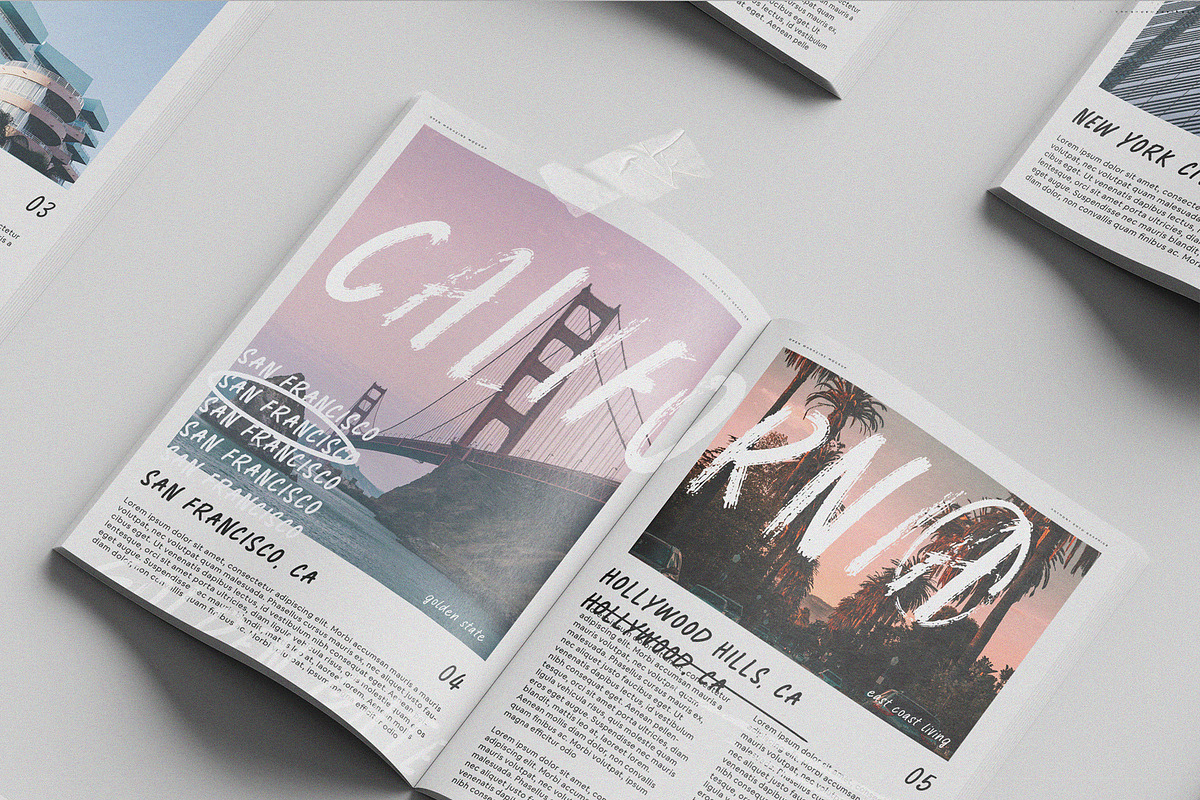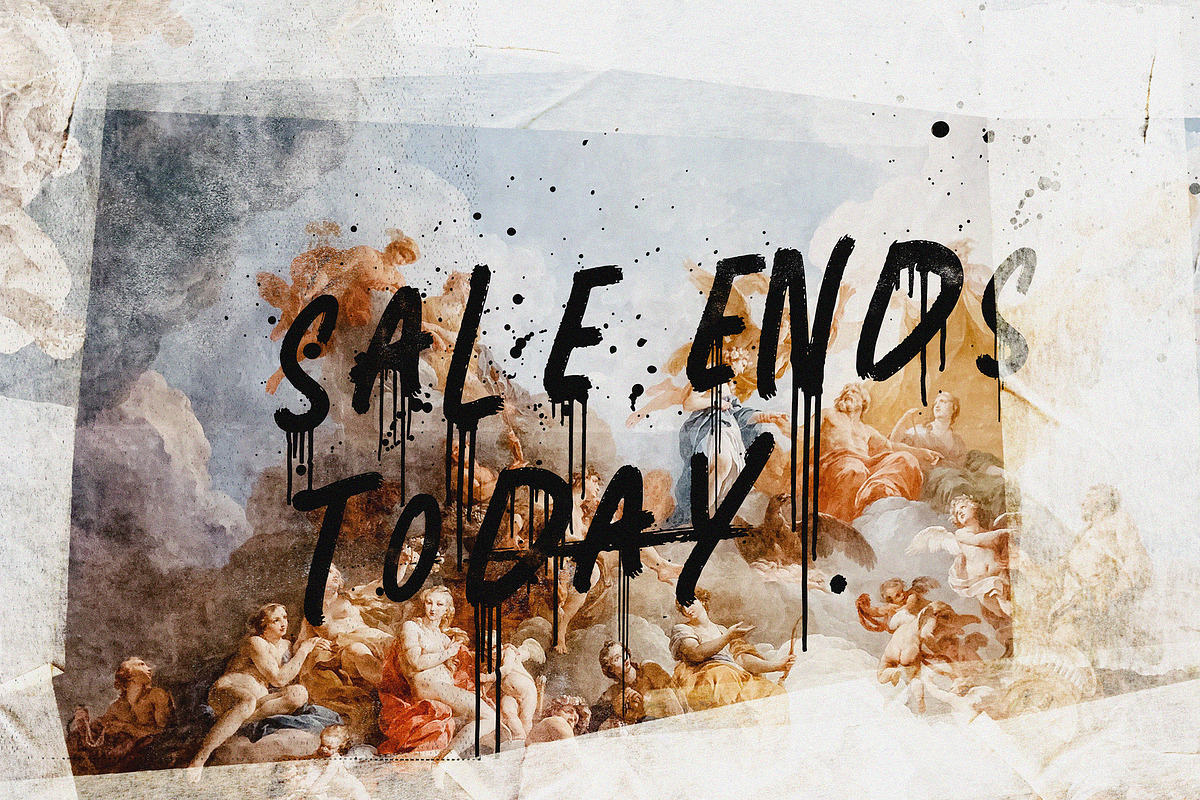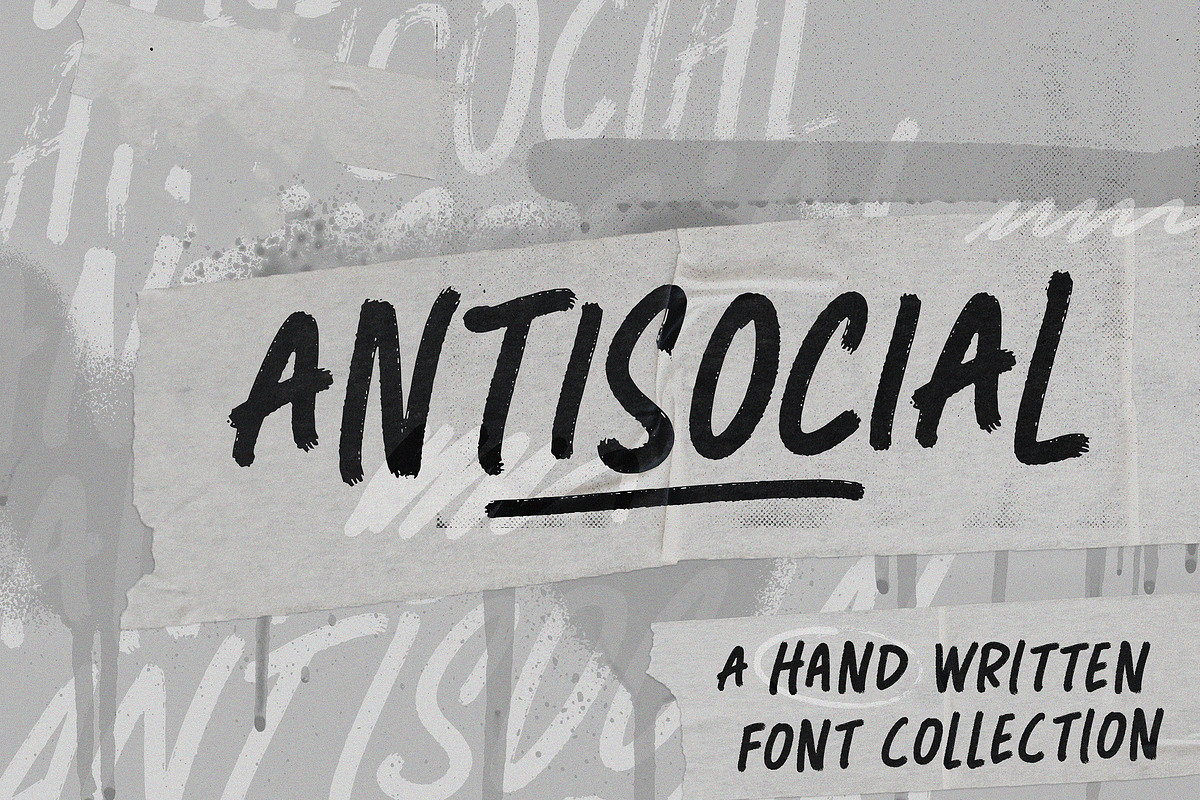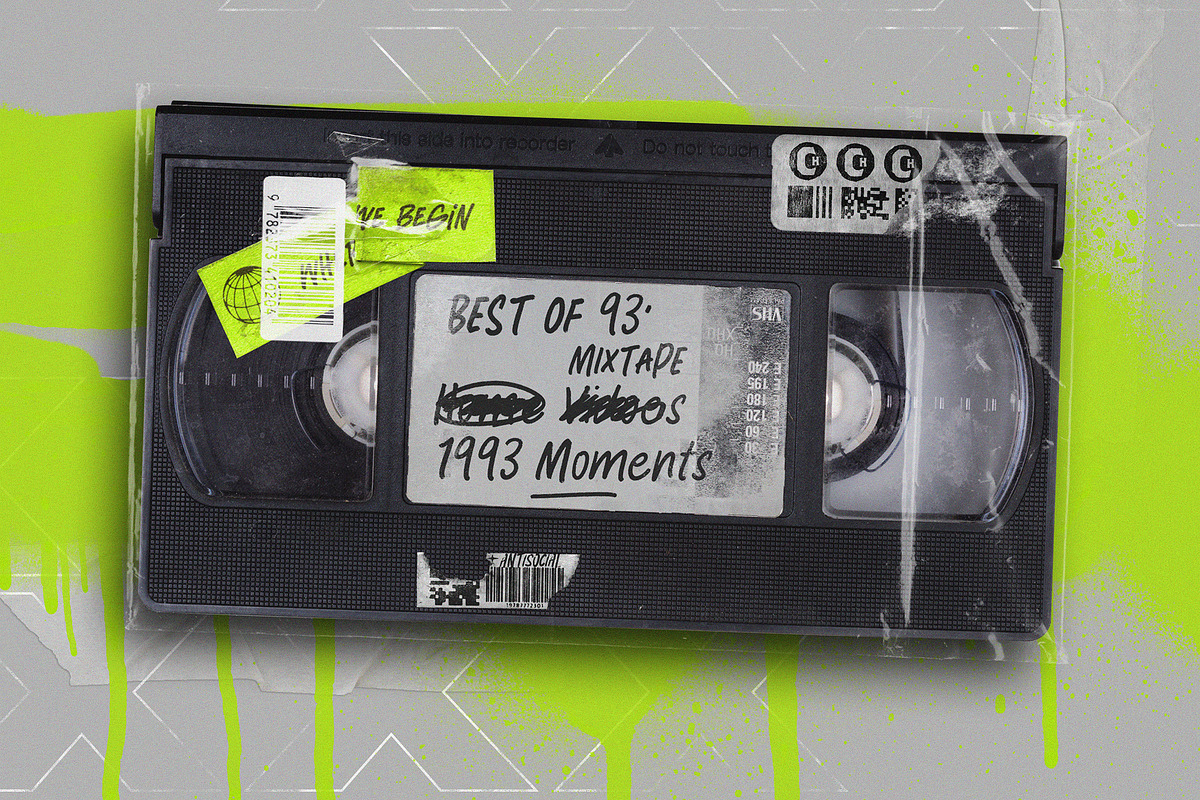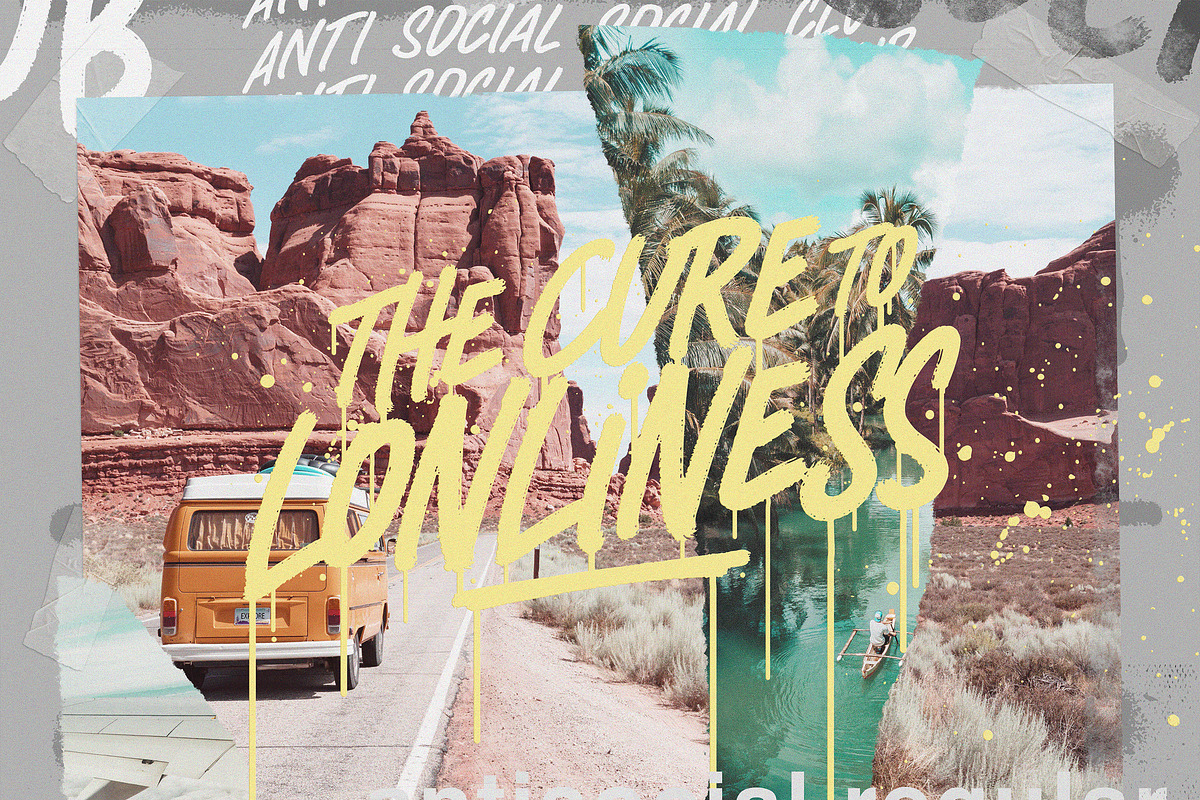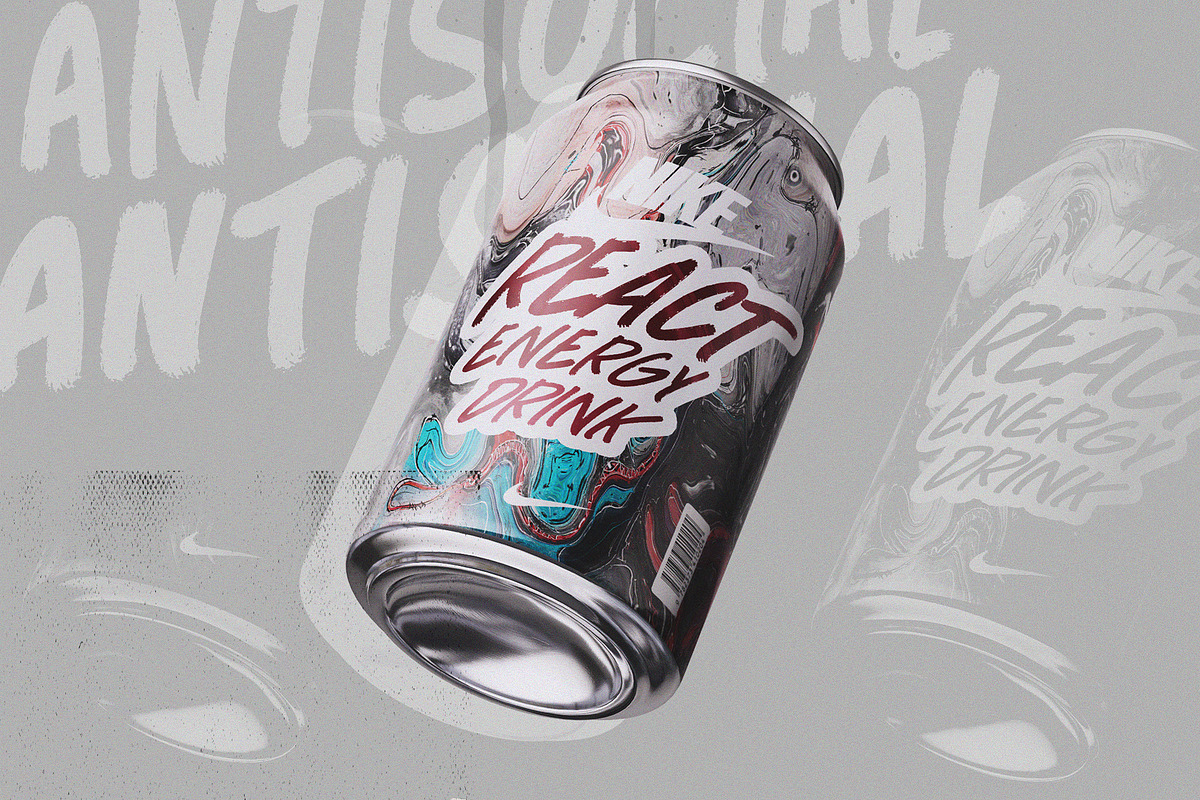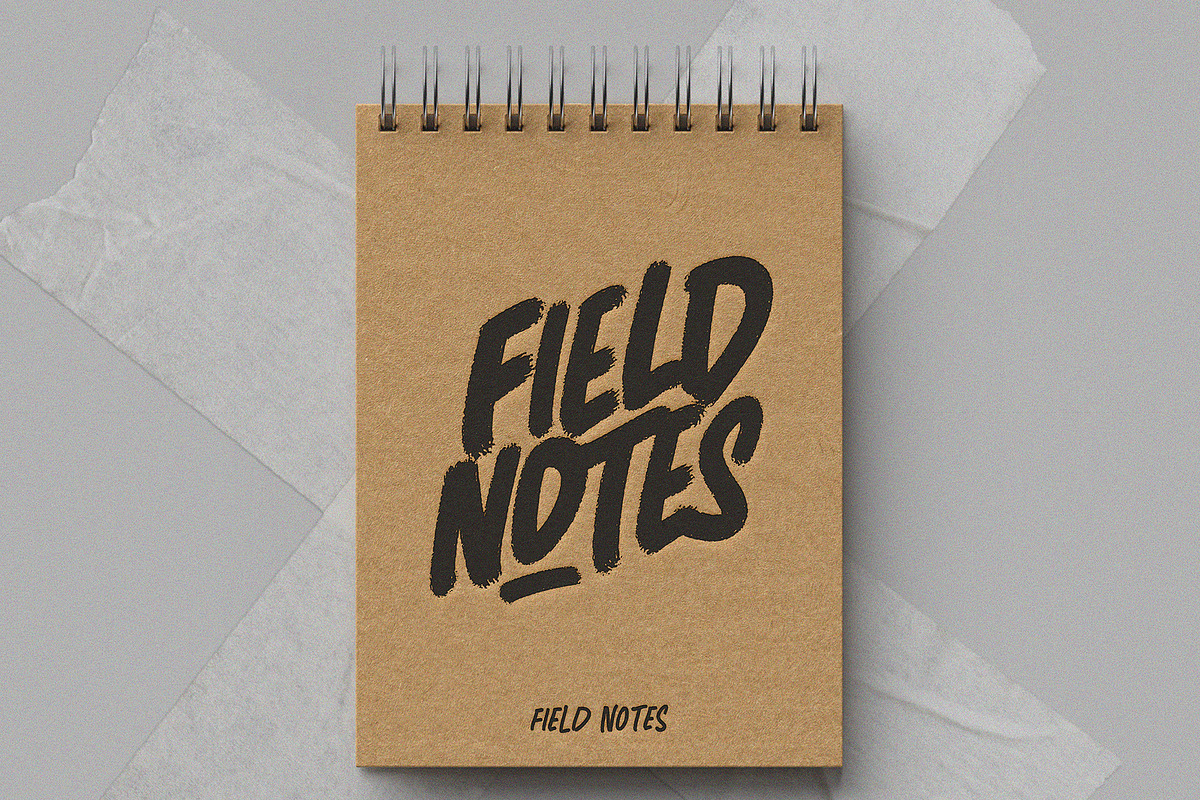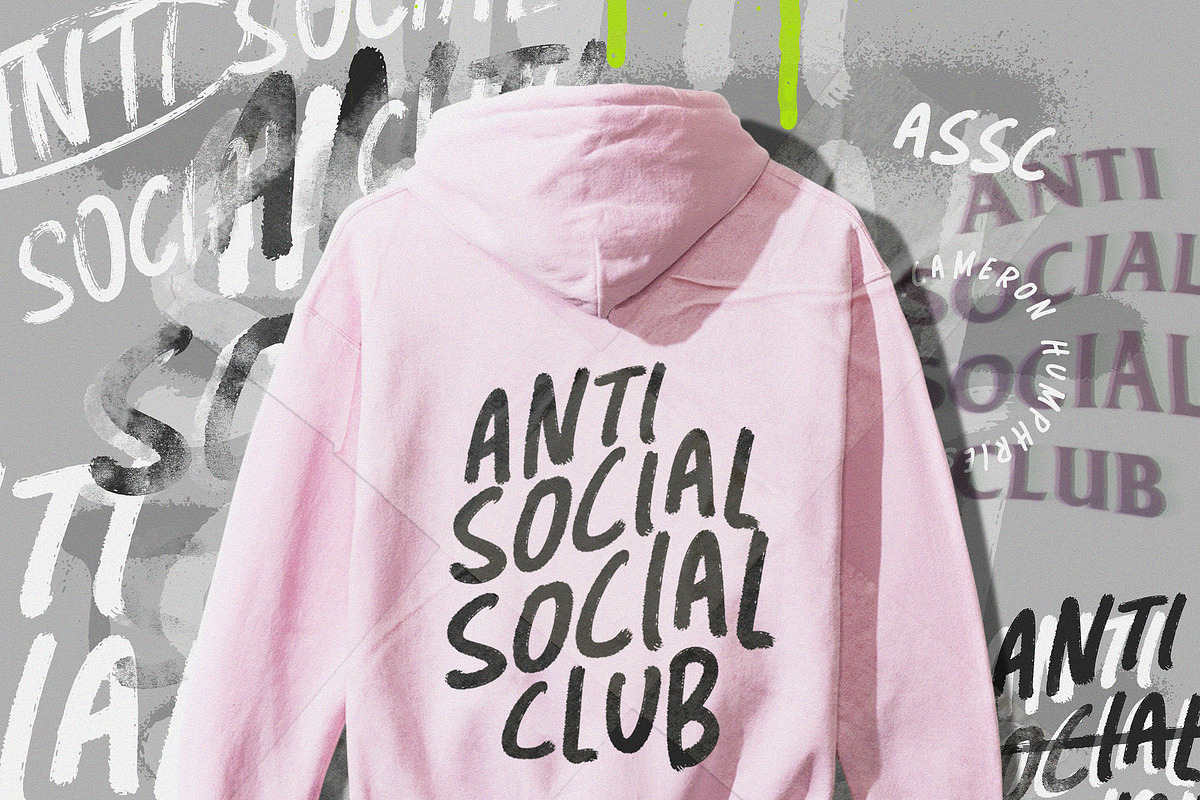
Antisocial Font
Introducing Antisocial Font Collection.
Antisocial font collection includes 6x handwritten fonts + Extras in different styles and variations, this font is perfect for any project. the Antisocial font family emulates a quick handwritten note or script that gives you the impression it has been personally written with a pen or brush.
Why Antisocial Font is worth a look
Antisocial Font by Cameron Humphries fits naturally into Branding, posters, packaging, typography.